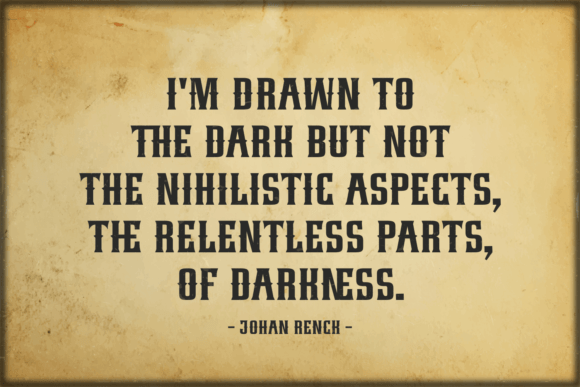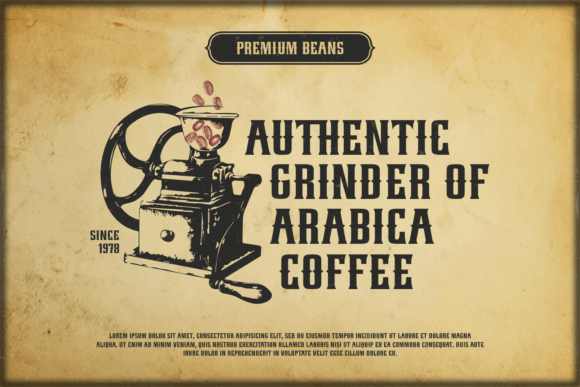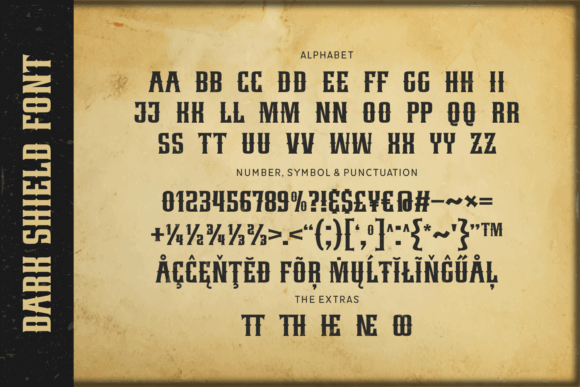
Unleashing the Power of Dark Shield Font
Have you ever found yourself stuck in a design rut, searching for the perfect font to elevate your creative project? It’s that moment when you stumble upon a hidden gem – a font that speaks to you, one that whispers stories of the past while commanding attention in the present. For many designers, that moment came when they discovered the Dark Shield Font. This retro blackletter font is a masterclass in blending boldness and vintage charm, making it the ultimate design resource for any creative project.
Whether you’re crafting a logo that needs a touch of tradition or designing packaging that demands a sense of strength, the Dark Shield Font is a high-quality choice that won’t disappoint. Its versatility makes it a free download favorite among designers, who appreciate its ability to work seamlessly with transparent backgrounds and a range of design styles.
With its old-world sophistication and modern appeal, the Dark Shield Font is a valuable asset for any designer looking to add depth and character to their work.
Key Features of Dark Shield Font
- Unique, modern design with a transparent background for versatility
- Perfect for use in logos, branding, and other design elements
Honest Review: Dark Shield Font
I recently had the chance to try out the Dark Shield Font, and I must say it’s a high-quality design resource. The font itself is quite versatile and can be used for a wide range of creative projects, from graphic design to web development.
- ✨ High-quality design: The Dark Shield Font has a professional and sleek design that looks great on any background.
- ✨ Transparent background: The font has a transparent background, which makes it easy to overlay on top of other images or designs.
- ⚠️ Limited font styles: The Dark Shield Font only comes in a few different styles, which may not be suitable for designers who need a wide range of font options.
- ⚠️ Not ideal for small text: The font is quite bold and may not be the best choice for small text or body copy.
Overall, I think the Dark Shield Font is a great addition to any designer’s toolkit. While it may have a few limitations, its high-quality design and free download make it a valuable resource for creative projects.
Introduction to Dark Shield Font
The Dark Shield Font is a free download design resource perfect for any creative project that requires a high-quality, edgy look. With its unique, modern design and transparent background, this font is ideal for designers looking to add a touch of sophistication to their work.
Tips for Getting the Most Out of Dark Shield Font
Here are some tips for getting the most out of the Dark Shield Font:
- Use the font in combination with other modern fonts for a sleek, professional look.
- Experiment with different font sizes and colors to add visual interest to your design.
- Use the font in a variety of creative contexts, such as logos, headings, and body text.